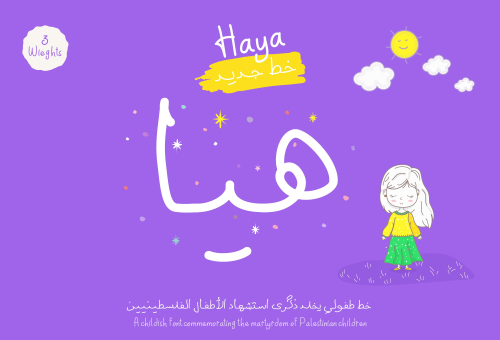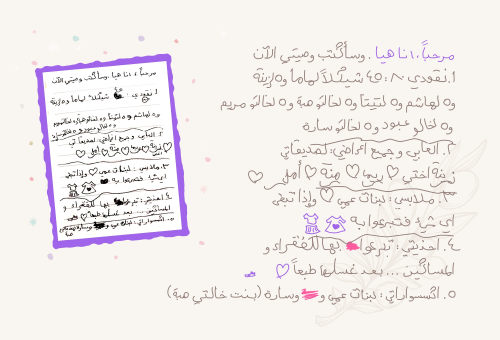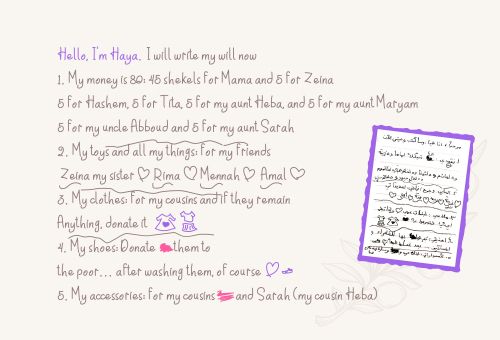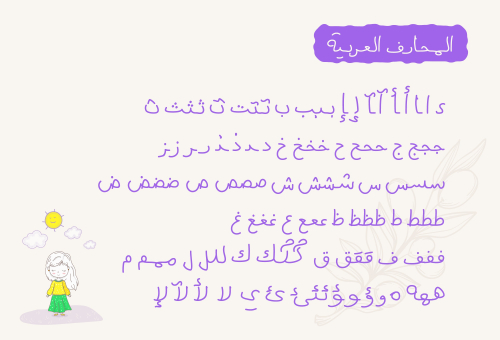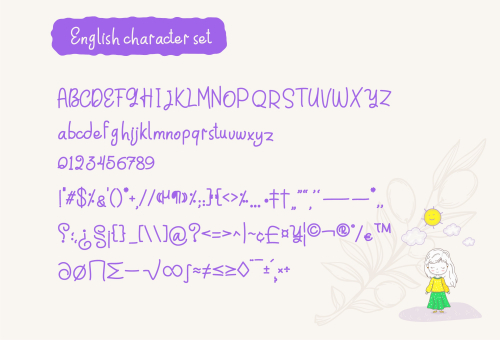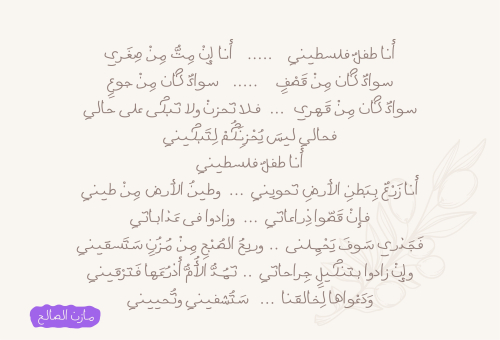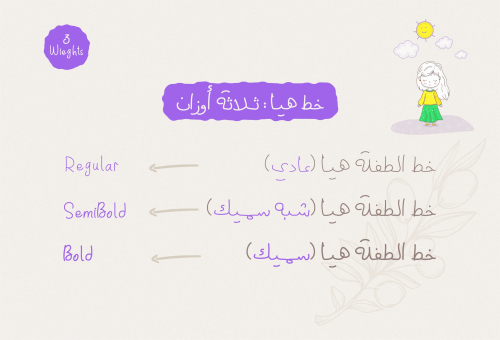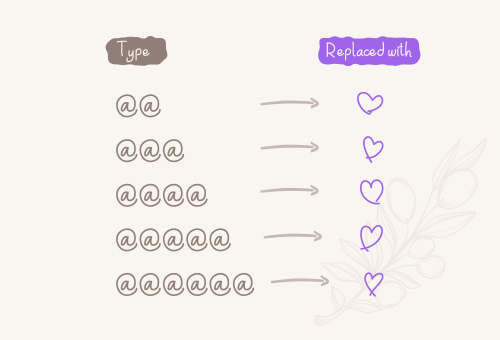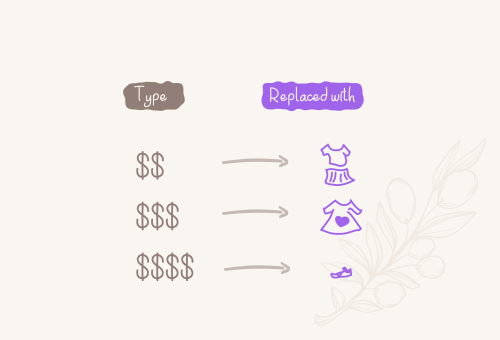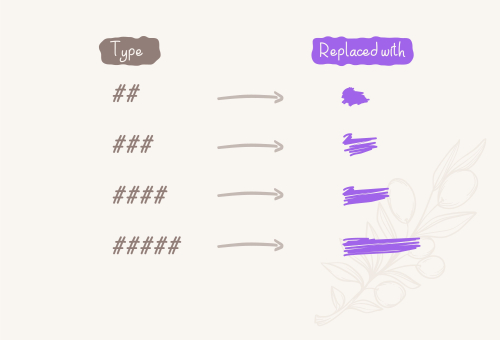
HAYA Font
HAYA – Arabic Font خط عربي
HAYA Font mimics the handwriting of the little girl Haya
A hand writing childish font commemorating the martyrdom of Palestinian children.